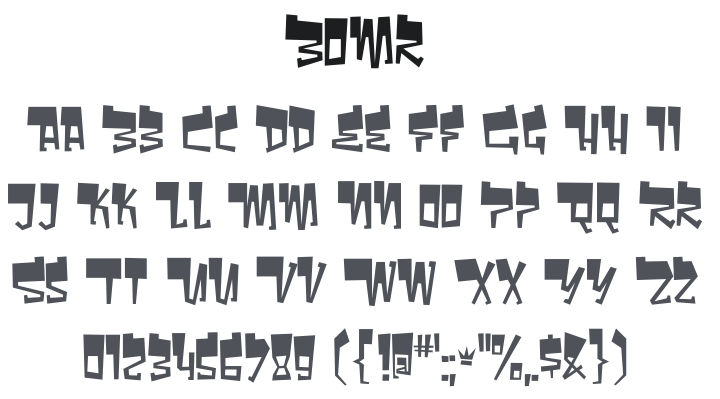
Bomr Font
About Bomr
Bomr is a bold, blocky graffiti-inspired display typeface drawn from the style of freight train graffiti. Its chunky letterforms feature distinctive large top-left serifs that add flair and spontaneity. Mixing capitals mid-word amplifies its street art energy. Great for urban branding, hip-hop aesthetics, skateboard graphics, street culture posters, and anything needing raw, expressive attitude.